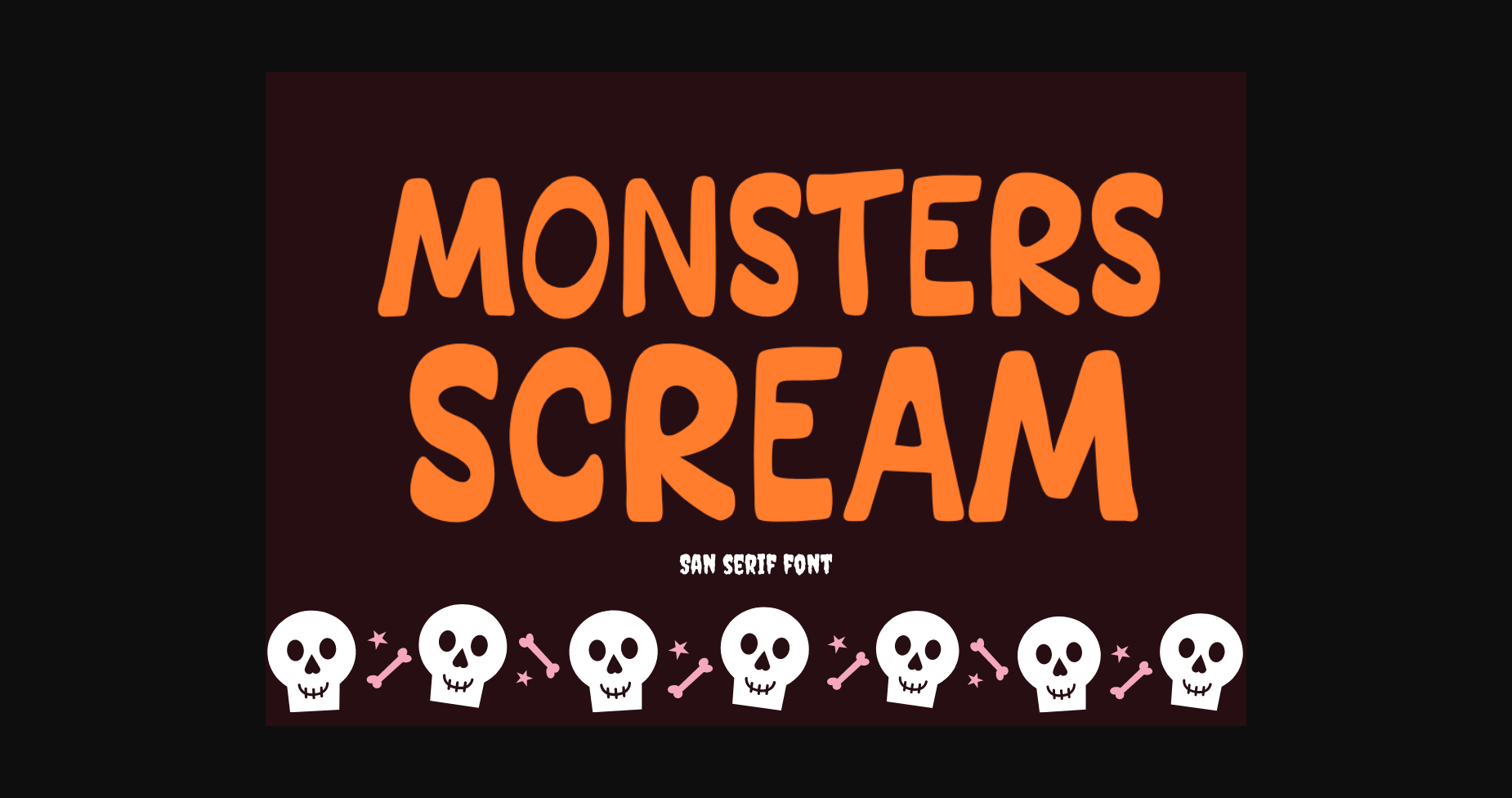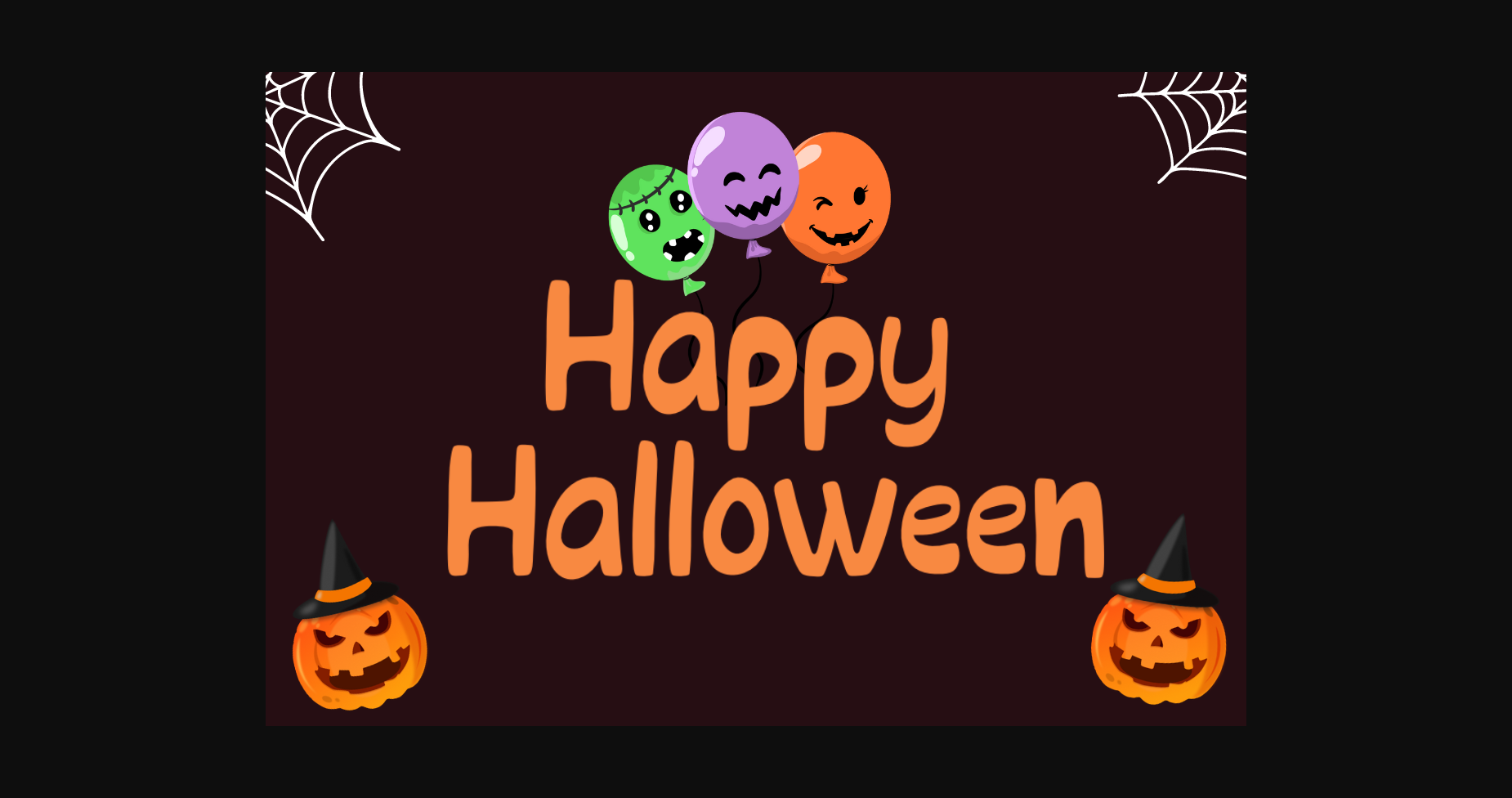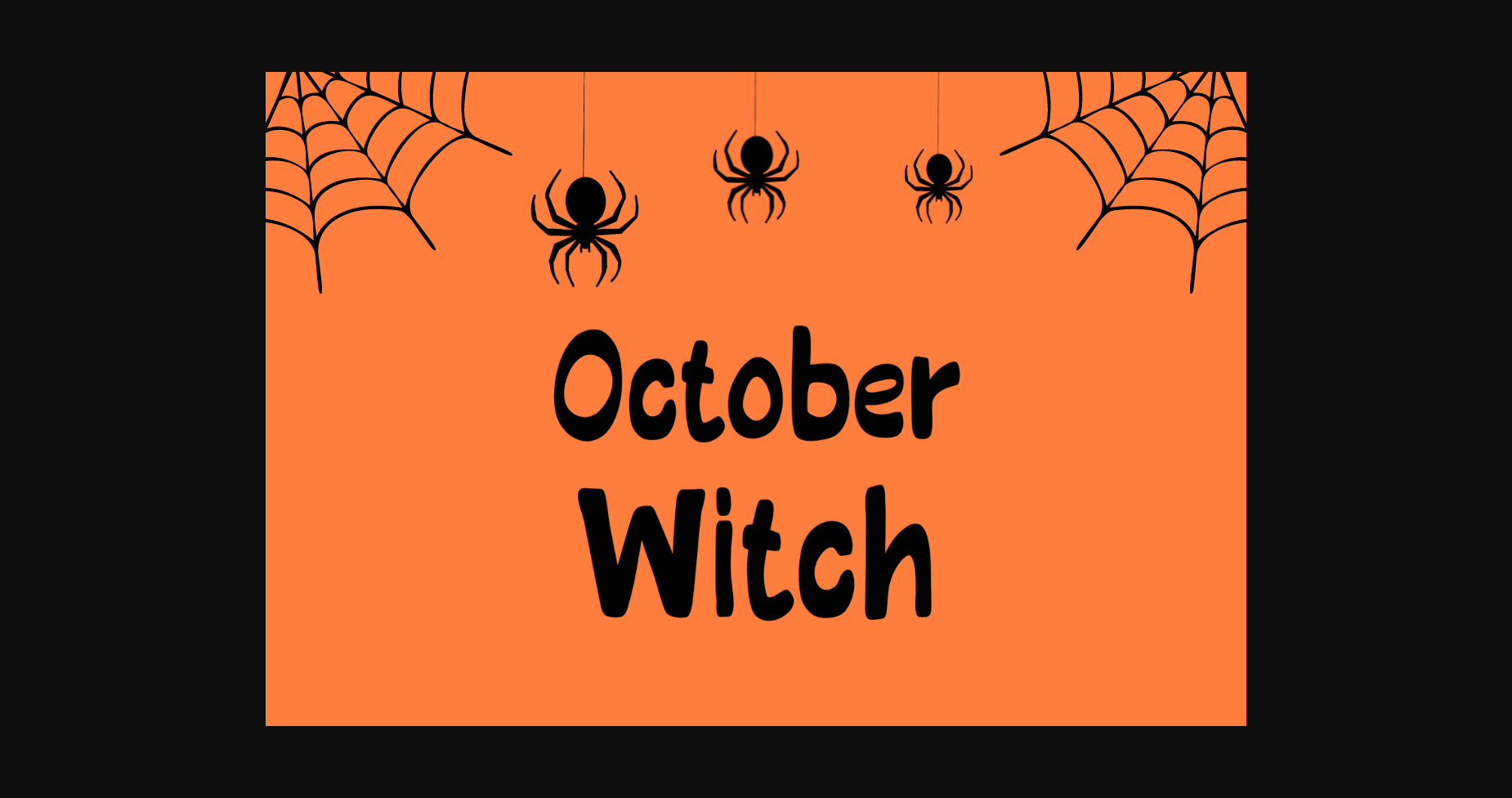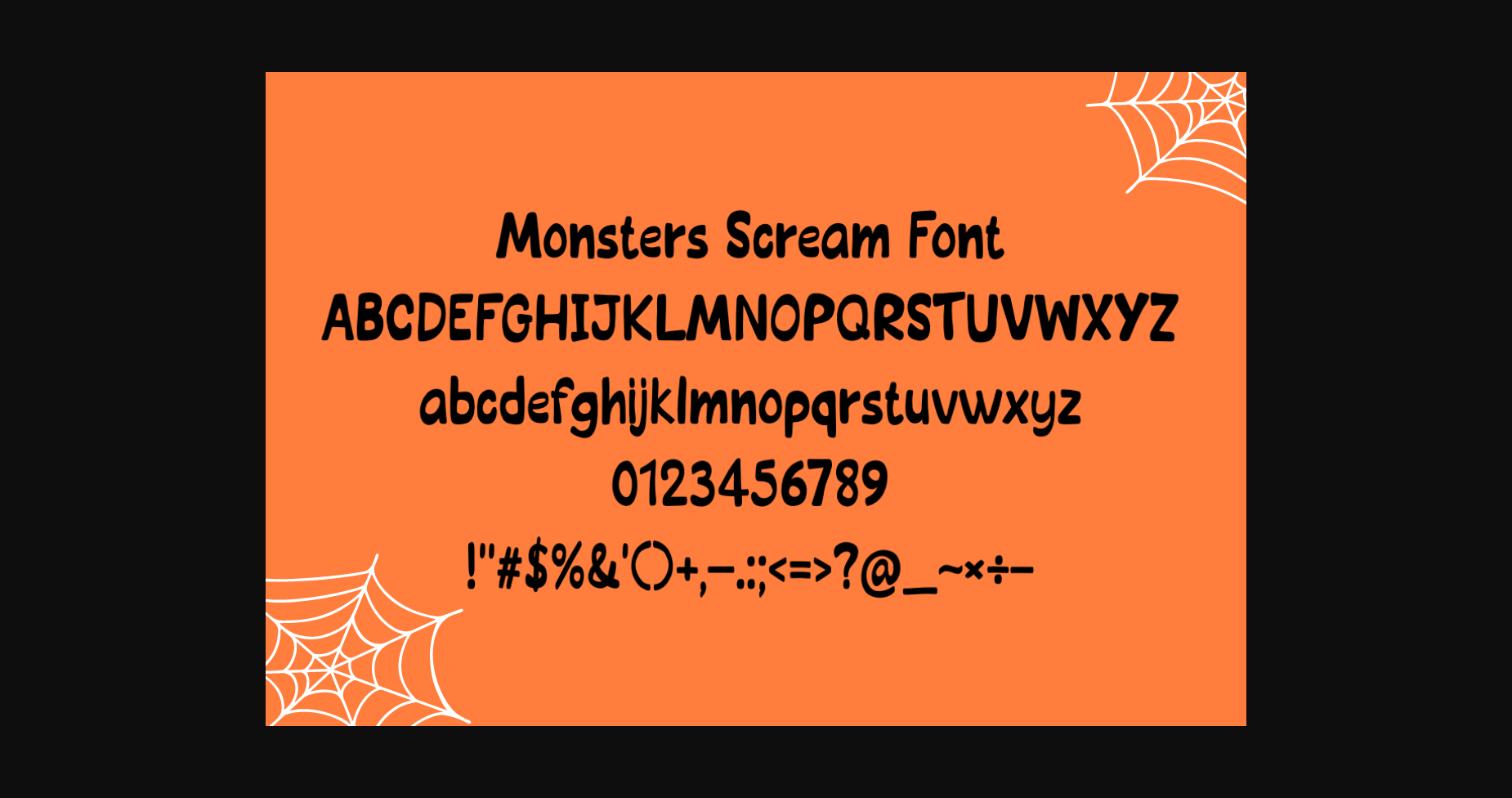
Monsters Scream Font
About Monsters Scream Font
MONSTERS SCREAM Font is a chilling and atmospheric sans serif typeface that captures the essence of the Halloween season. With its bold and sharp letterforms, this font evokes a sense of mystery and spookiness. Perfect for party invitations, haunted house flyers, and eerie designs, MONSTERS SCREAM Font sets the stage for a hauntingly good time, sending shivers down your spine.